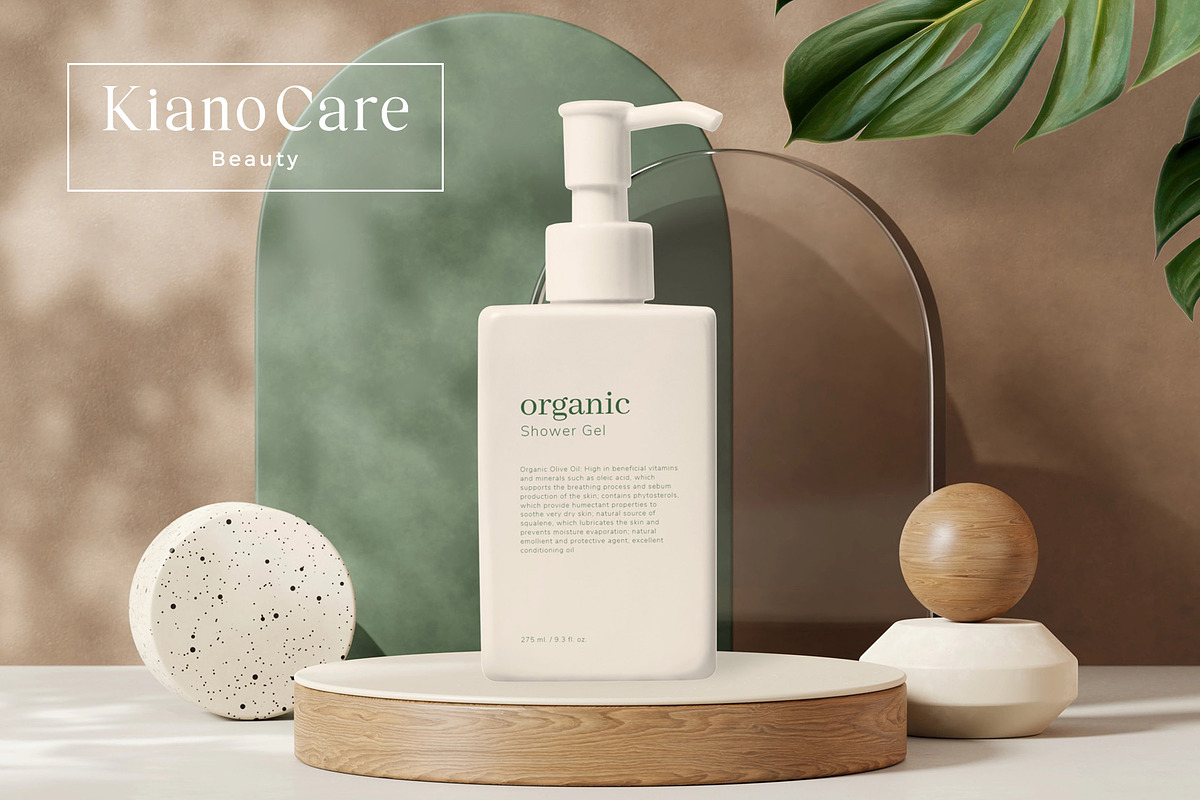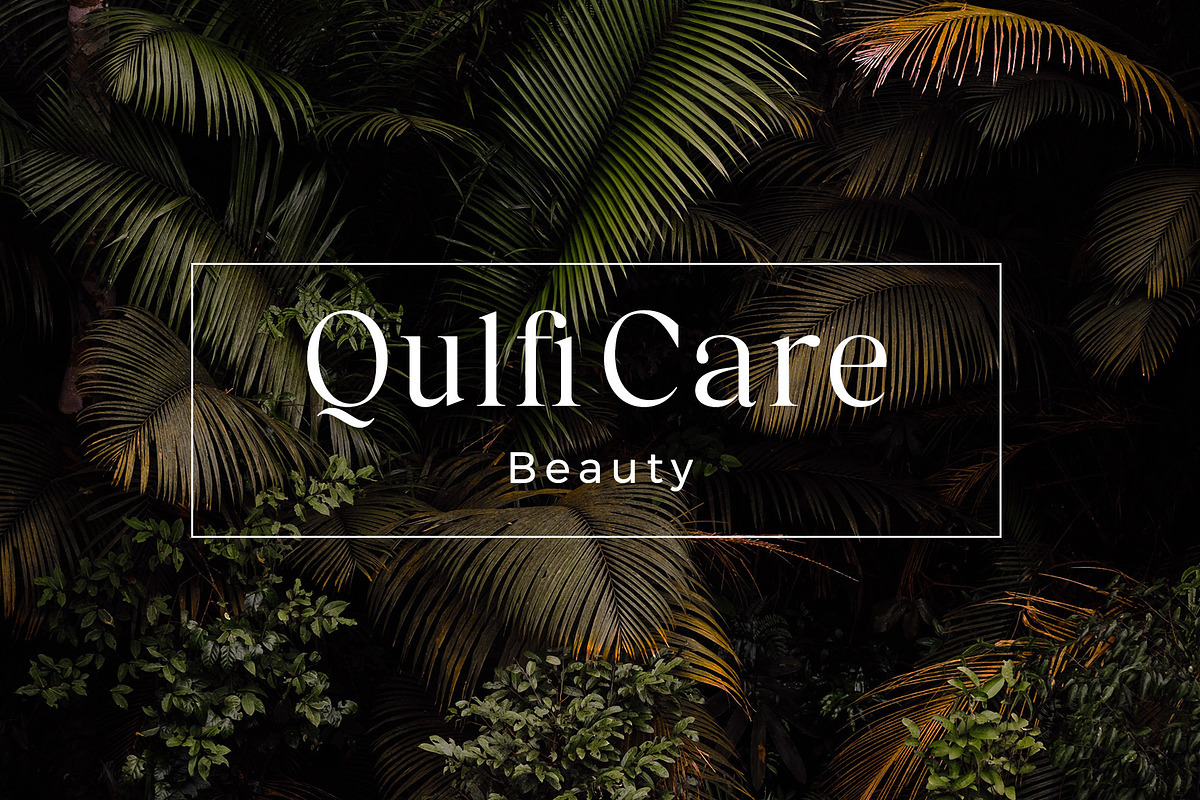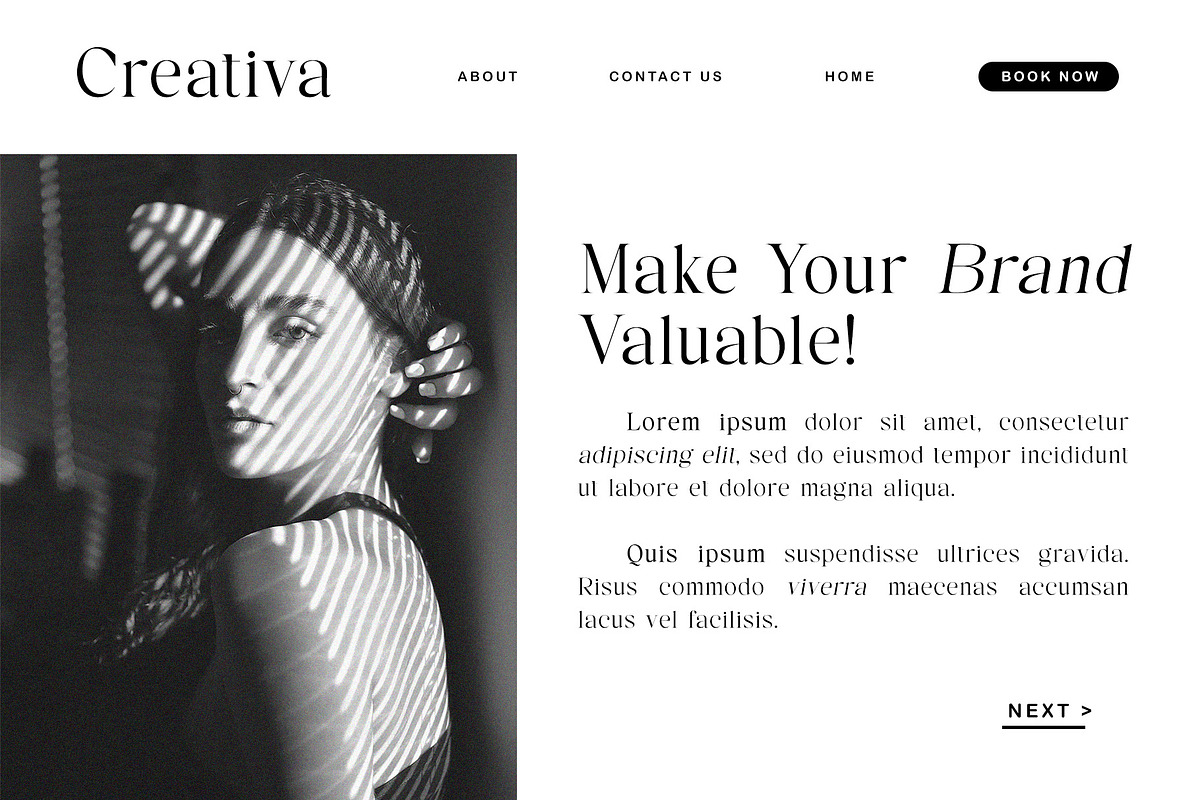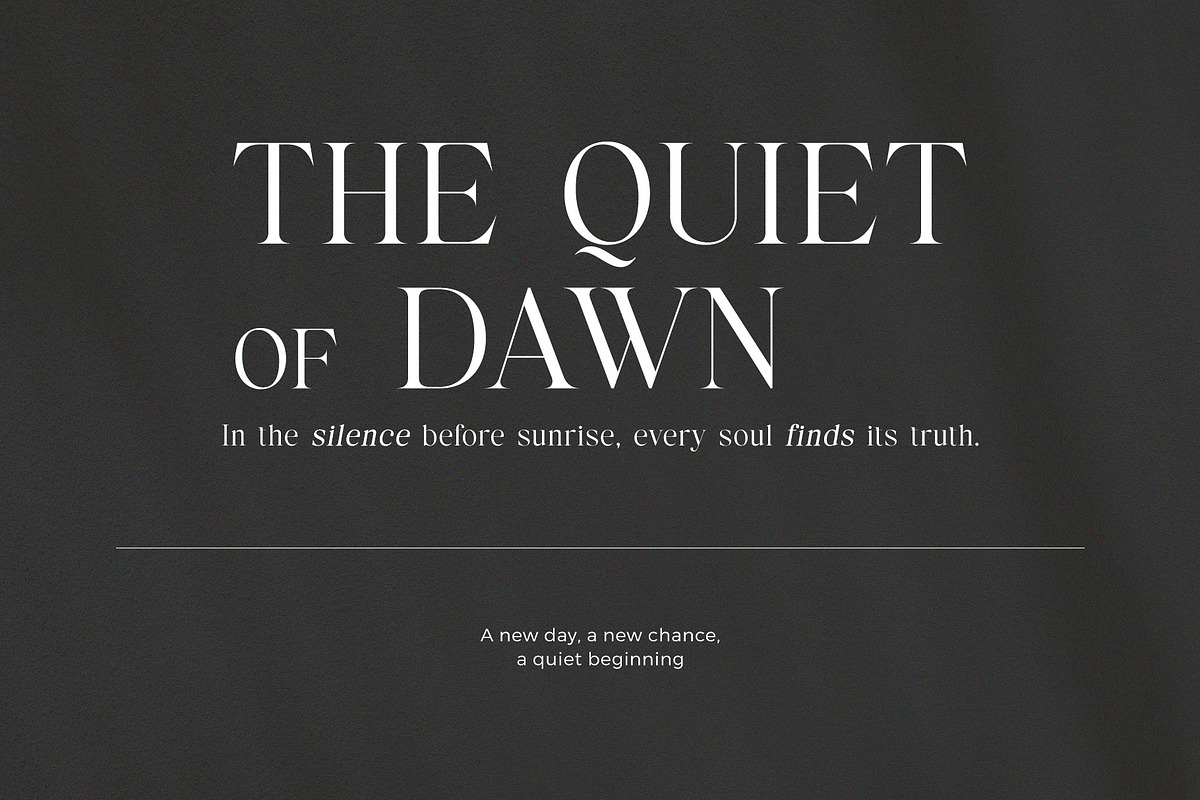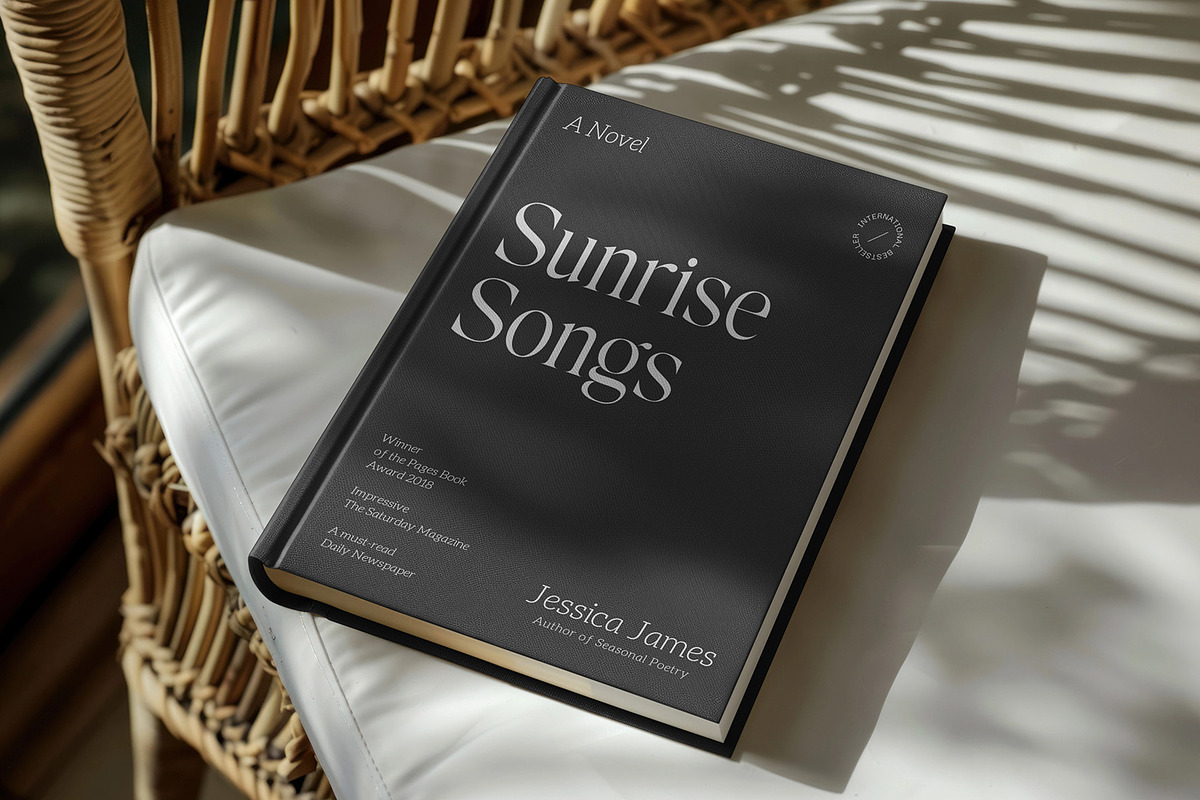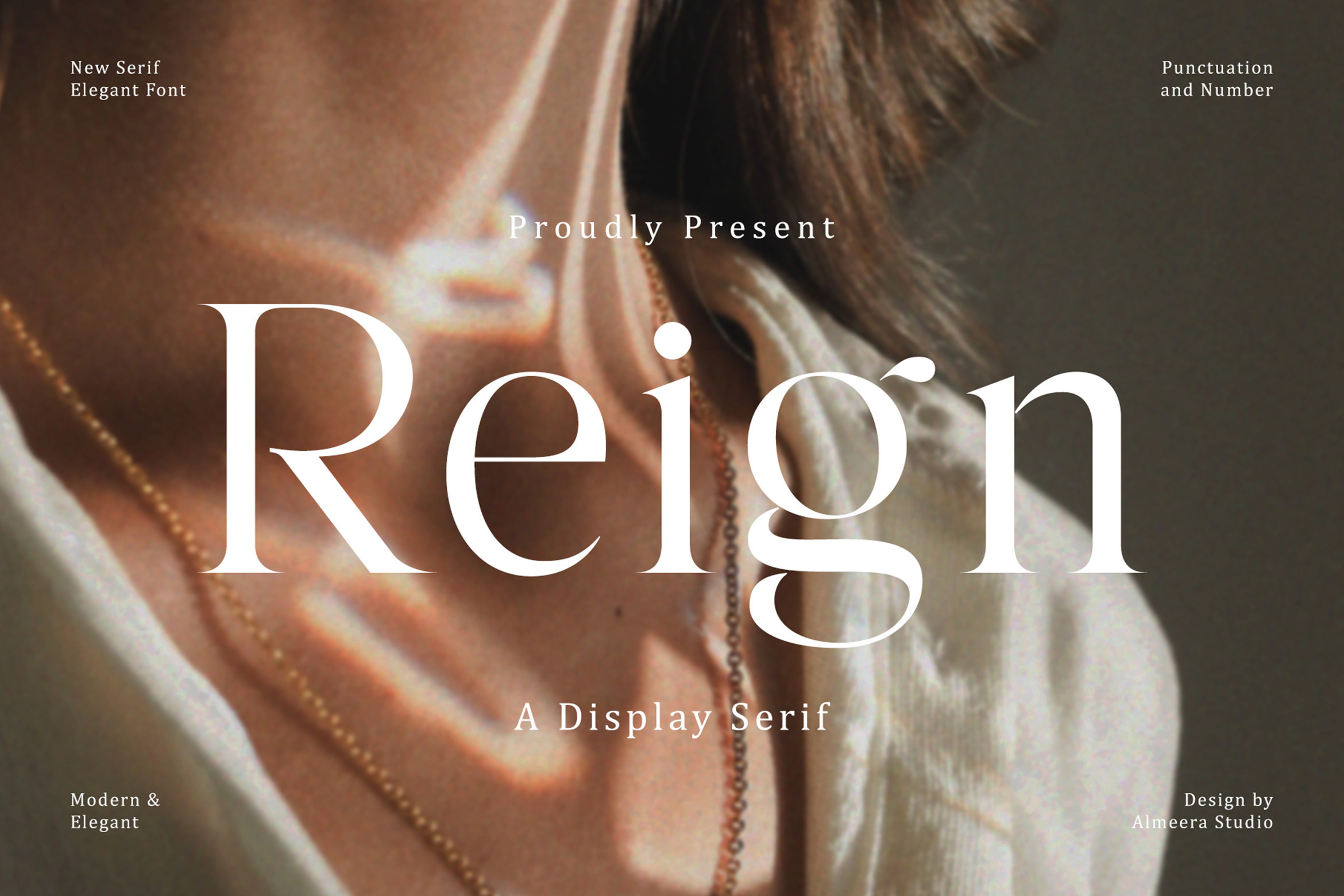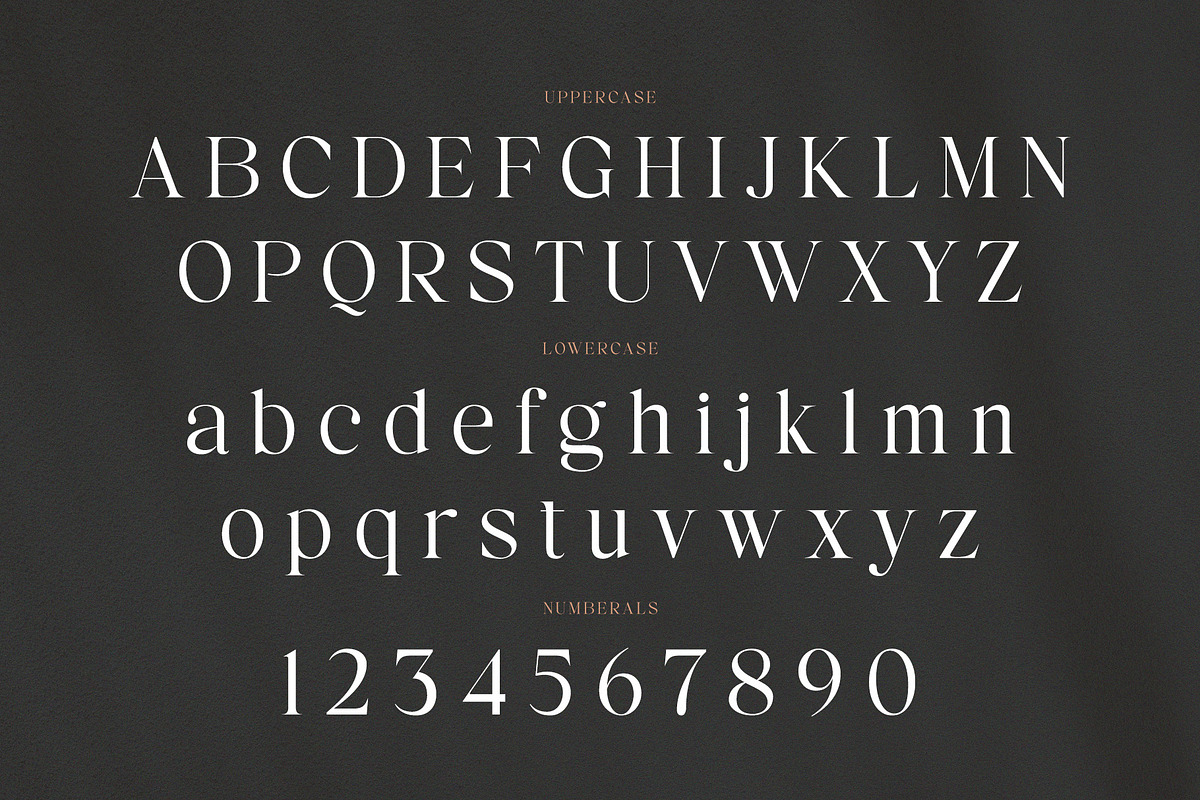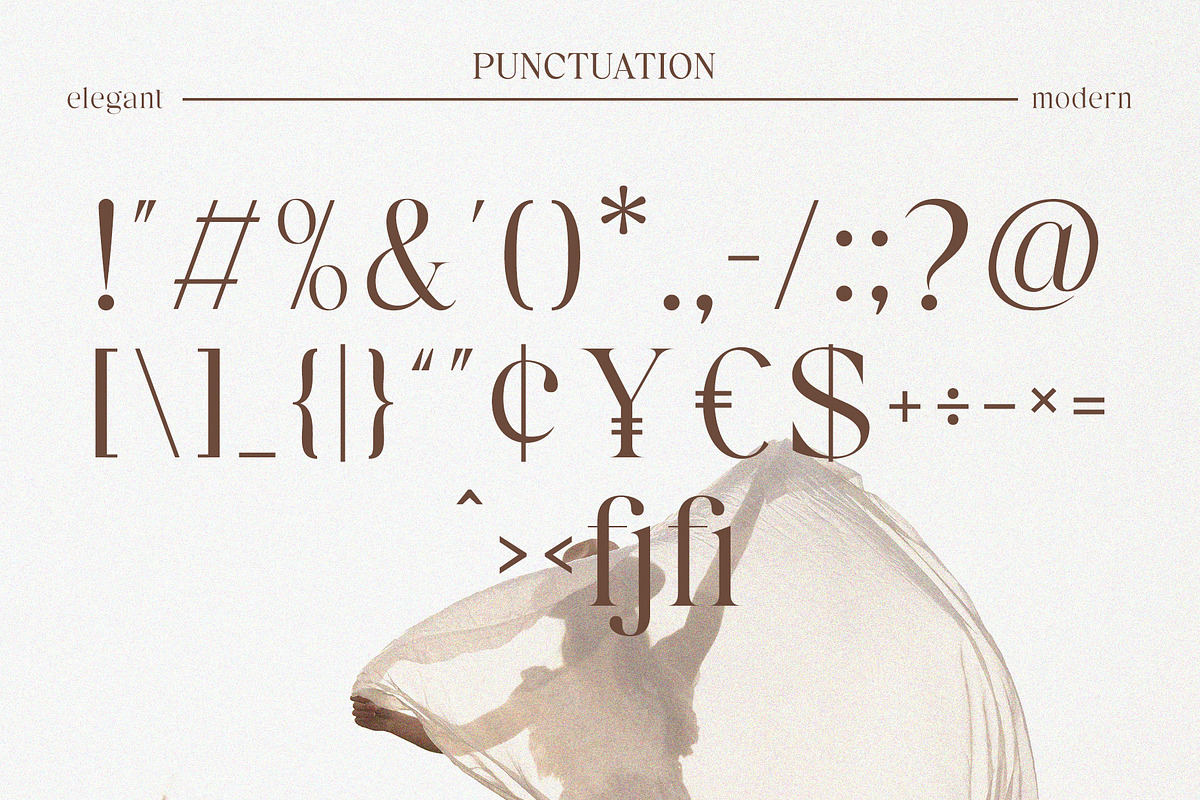
Reign – Display Serif Font
Reign is a modern display serif font that embodies elegance, strength, and timeless beauty. With its refined contrasts, stylish curves, and high-end appeal, Reign is perfect for fashion editorials, luxury branding, magazine headlines, wedding stationery, and upscale product packaging. Designed to command attention and exude confidence, this font adds a regal and sophisticated tone to every design project. Let Reign elevate your visual storytelling with classic charm and modern finesse.